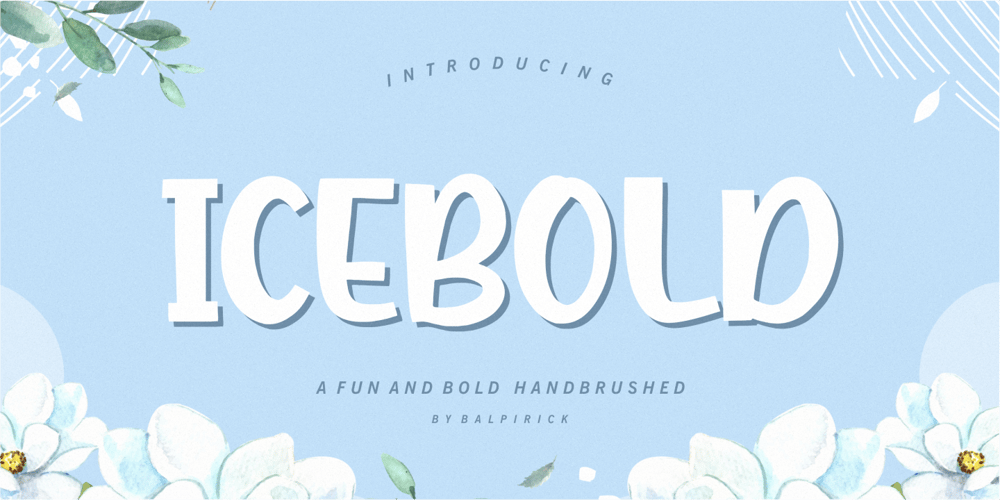
Icebold
Icebold font
Icebold Font Family was designed by Restu Angga and published by Balpirick. Icebold contains 1 styles and family package options. ICEBOLD is a Fun and Bold Hand brushed Font.ICEBOLD is perfect for product packaging, branding project, magazine, social media, wedding, or just used to express words above the background.It support multilingual.Enjoy the font, feel free to comment or feedback, send me PM or email.Thank you!